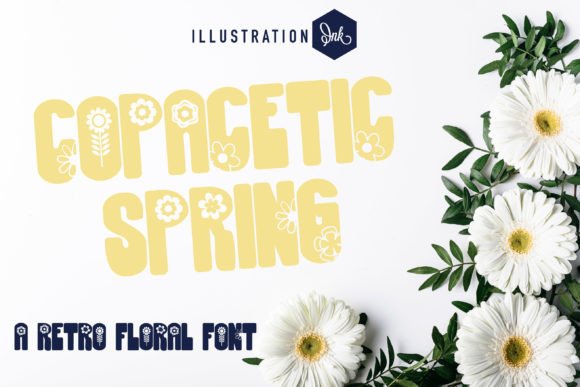
Welcome to the enchanting world of Copacetic Spring, where fonts bloom into captivating creations!
Step into a realm of nostalgia and elegance, where the playful dance of letters intertwines gracefully with the delicate touch of nature. Copacetic Spring, a charming sans-serif font, is the perfect canvas for your creative vision to blossom.
Each character is meticulously adorned with whimsical floral accents, painting a tapestry of beauty and joy. The letters flow effortlessly, like a gentle breeze carrying whispers of enchantment, creating a harmonious symphony on the page.
With Copacetic Spring, you can evoke the carefree spirit of spring, inviting warmth and happiness into your designs. Let your imagination soar, paint vibrant memories, and create an unforgettable experience that captivates the hearts of your audience.
Embrace the captivating charm of Copacetic Spring, and let your designs bloom into extraordinary masterpieces. Dive into a world of captivating typography, where every letter tells a story and every design becomes a timeless treasure.